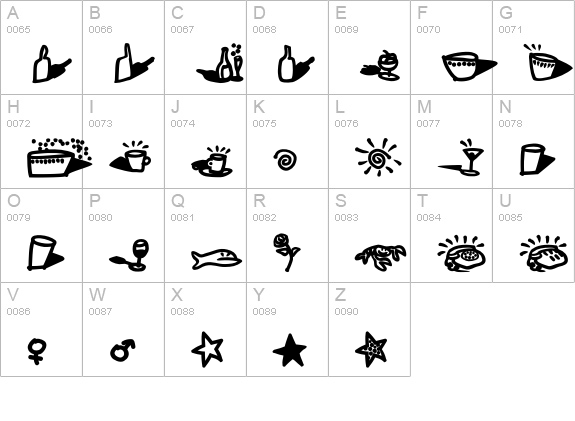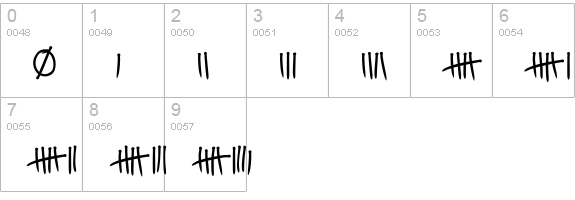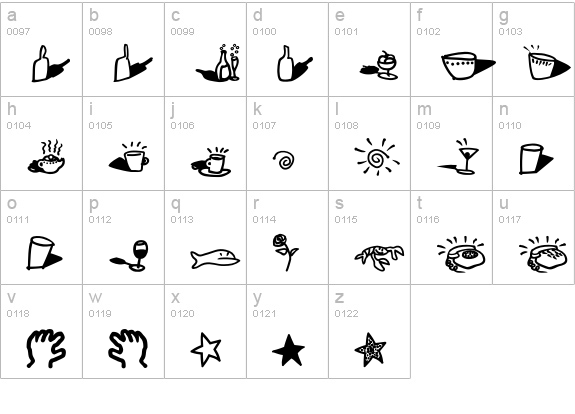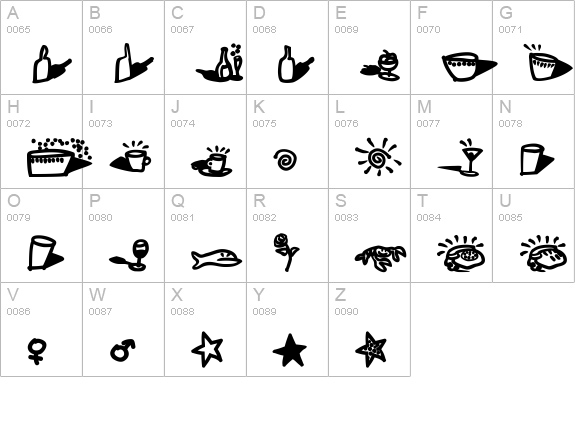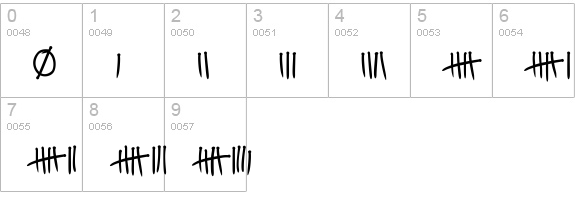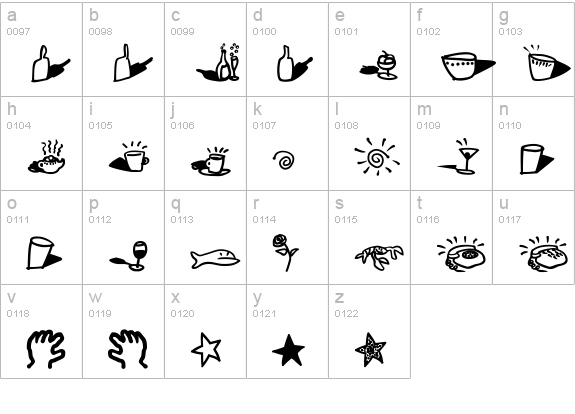
SoupBone-Dingbats Font Details
Introducing SoupBone-Dingbats, a uniquely crafted font that will add a touch of whimsy and playfulness to your designs. This extraordinary font features a collection of intricate and eye-catching dingbats that are perfect for adding decorative elements to your projects. SoupBone-Dingbats font offers a wide variety of symbols, icons, and illustrations that can be used to enhance any creative endeavor. Whether you're designing invitations, creating logos, or simply looking for a fun way to add flair to your social media posts, this font has got you covered. The beauty of SoupBone-Dingbats lies not only in its visually captivating characters but also in its versatility. From delicate floral designs to bold geometric shapes, the possibilities are endless. You can mix and match the dingbats to create unique compositions or use them individually as attention-grabbing accents. Best of all, SoupBone-Dingbats is completely free! Yes, you read that right. This remarkable font is freely available to download at FontsMarket.com, a reliable and trusted source for high-quality fonts. Now, you can enjoy the creative freedom that comes with SoupBone-Dingbats without breaking the bank. So why wait? Unleash your imagination and let SoupBone-Dingbats take your designs to the next level. Download this exceptional font today and embark on a journey of endless creativity. Don't miss out on the opportunity to add a touch of charm and excitement to your projects with SoupBone-Dingbats. Get it now, exclusively at FontsMarket.com.